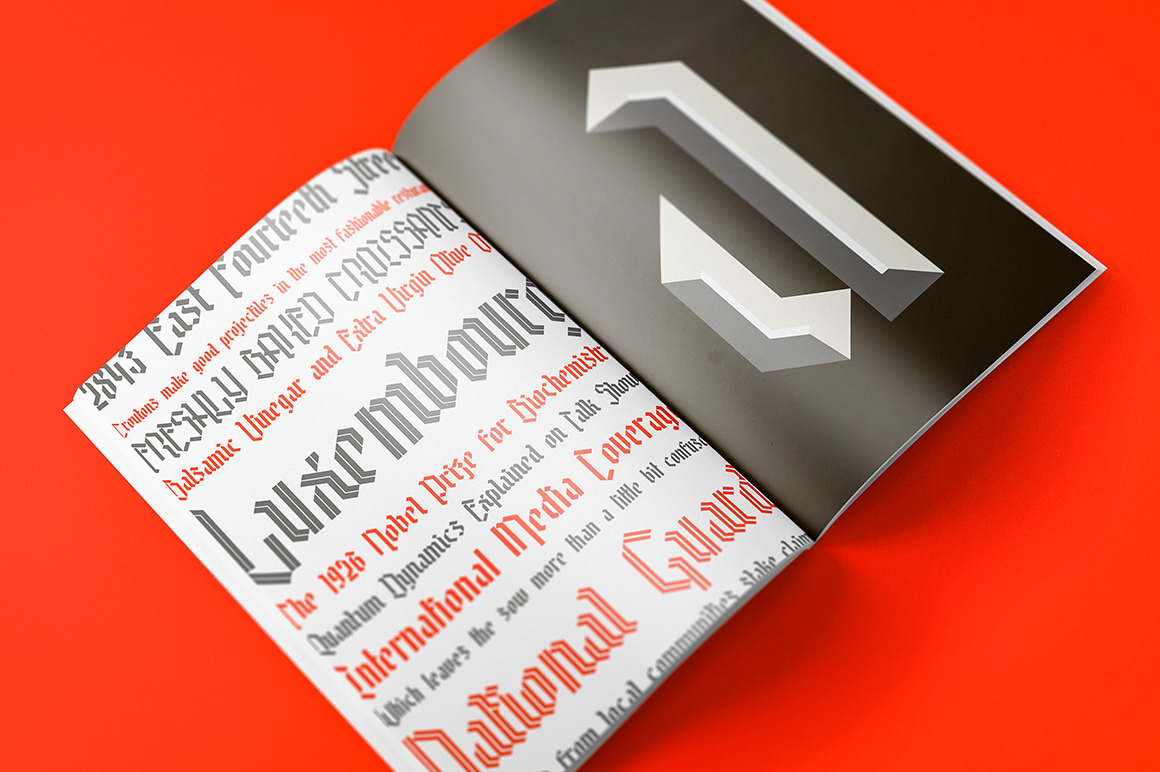
Easy Company Typeface Complete Set
The "Easy Company Typeface" is a modern interpretation of the classic blackletter style, designed to evoke the look of a bygone era, particularly reminiscent of the days of the great world wars. Its thick black hard strokes give it a vintage and timeless feel, perfect for projects that require a touch of nostalgia and history.
This versatile font is suitable for a variety of uses, including editorial headlines, newspaper titles, packaging, logos, and names. Its bold and distinctive appearance makes it ideal for projects that need to make a strong visual impact. Additionally, Easy Company includes numerals, making it suitable for use on jerseys or to denote dates, adding to its versatility and practicality in various design applications.
There is the Inline fonts of both the Regular weight as well as the SmallCaps weight. The Inline fonts are meant to be place right on top of the Regular weight to provide a slick line through the center which you can change the color of or simply make the color of the background. You will also find included the unique Sans weight which gives a more modern touch and pairs well with the Regular weight face.